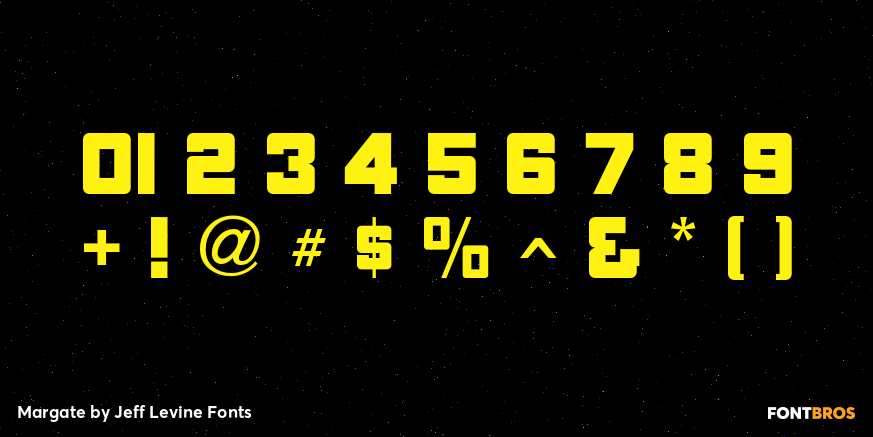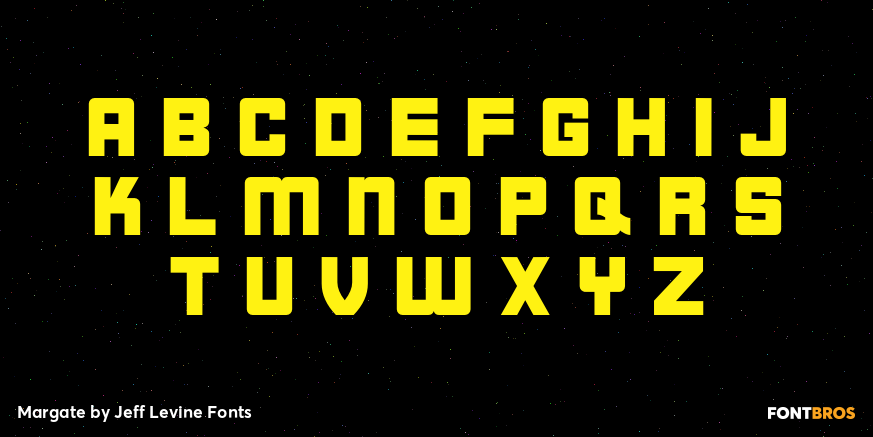
Margate
A set of water-applied decals manufactured in 1962 by the American Decalcomania Company for Goodyear serves as the basis for Margate JNL.
This block-style letter (with a hint of the Art Deco era) is bold, uniform in weight and commands attention in any titling application.
Margate JNL Regular by Jeff Levine Fonts